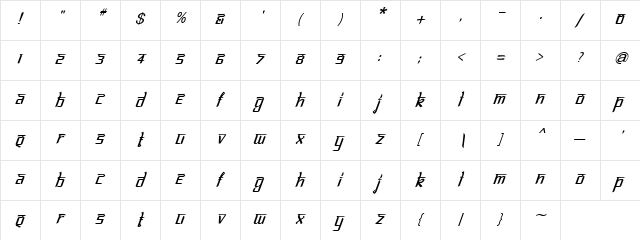
Bitling lipika Regular
Design Context for Bitling lipika Typeface
Bitling lipika is a composed and adaptable typeface that performs quietly and consistently across a wide range of design contexts.